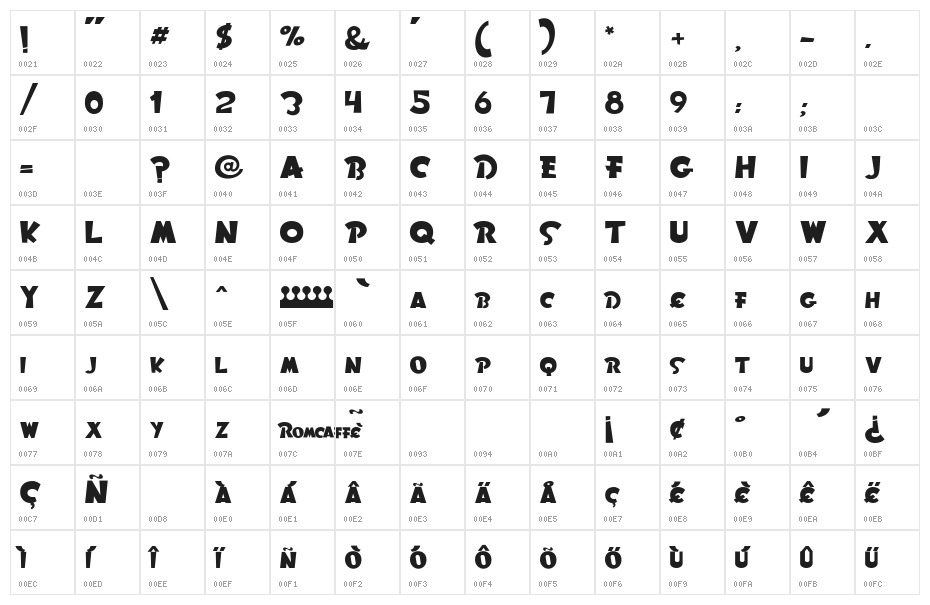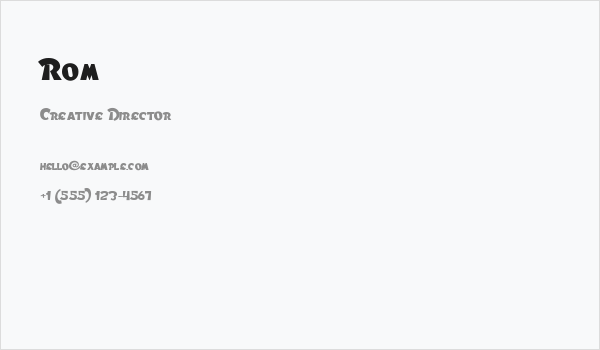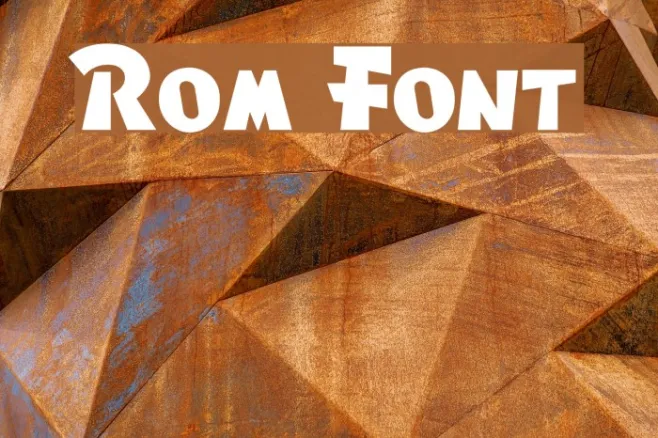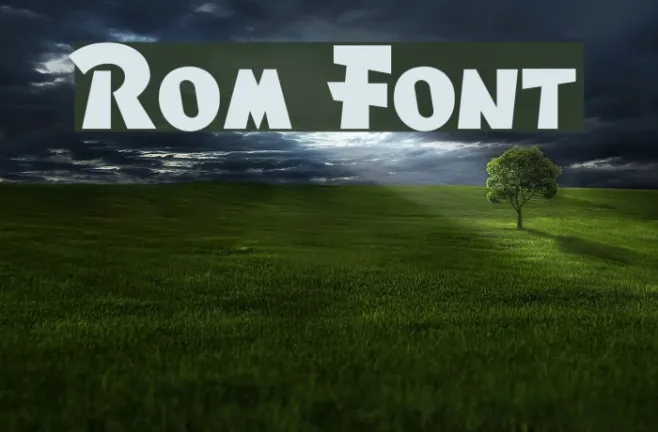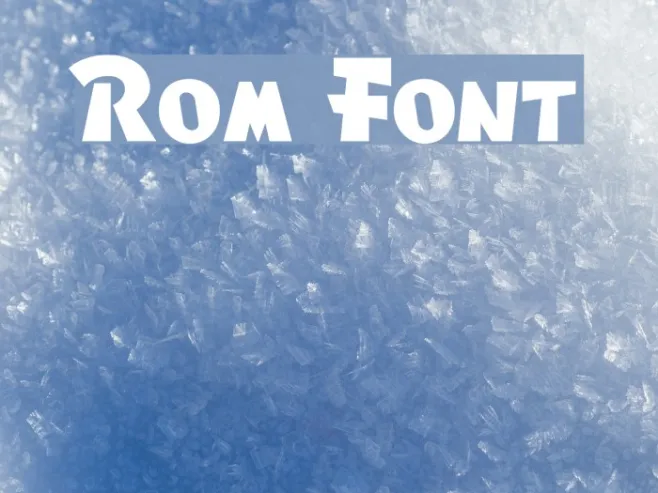
Rom Font
Rom Description
This bold and dynamic font features a striking, angular design with sharp edges and a strong presence. The uppercase letters are crafted with a unique geometric style, incorporating bold strokes and distinctive cuts that create a sense of movement and energy. The numbers and special characters follow the same bold aesthetic, ensuring consistency across all elements. This font is highly legible and makes a powerful visual impact, making it ideal for attention-grabbing designs.